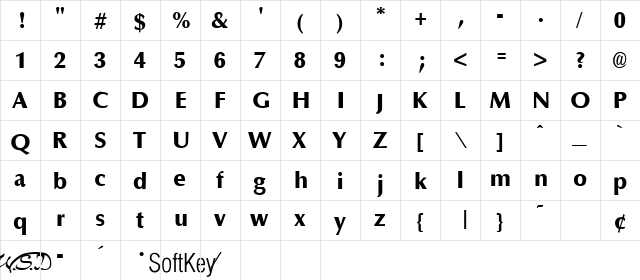
Optim ExtraBold Regular
Design Context for Optim ExtraBold Typeface
Optim ExtraBold takes a measured approach to typography — its balanced proportions and neutral character make it a reliable workhorse for both digital and print work. Its bold stroke weight gives it real presence on the page.